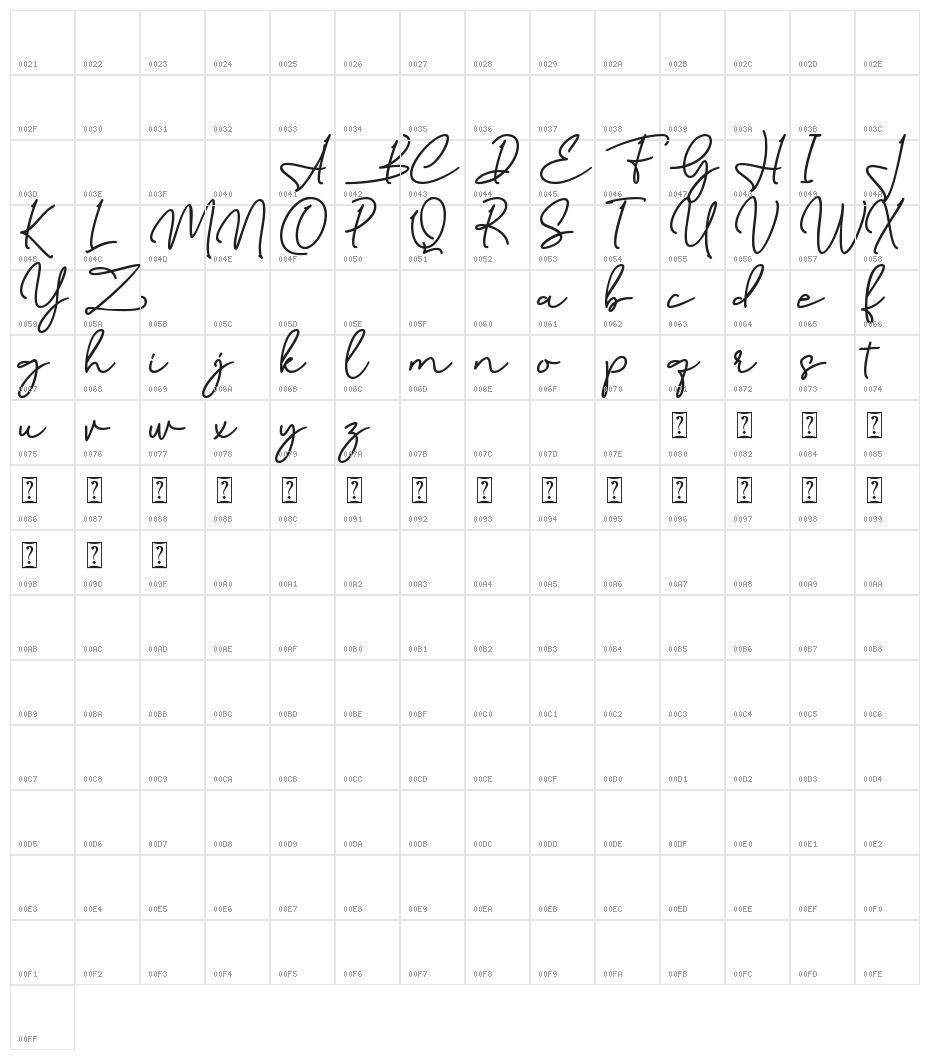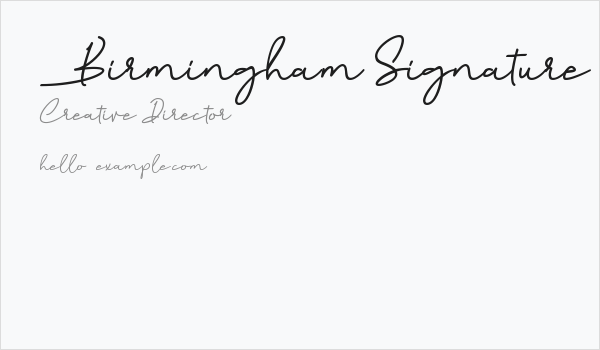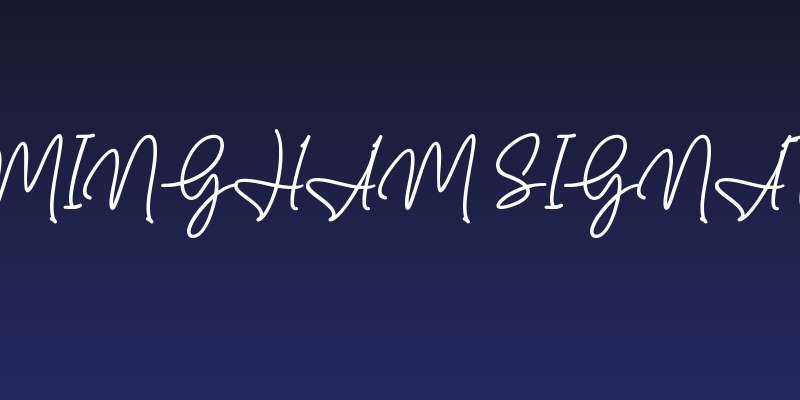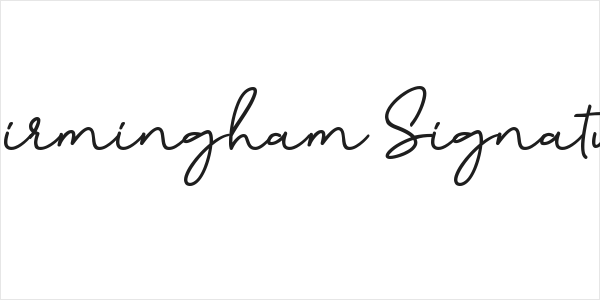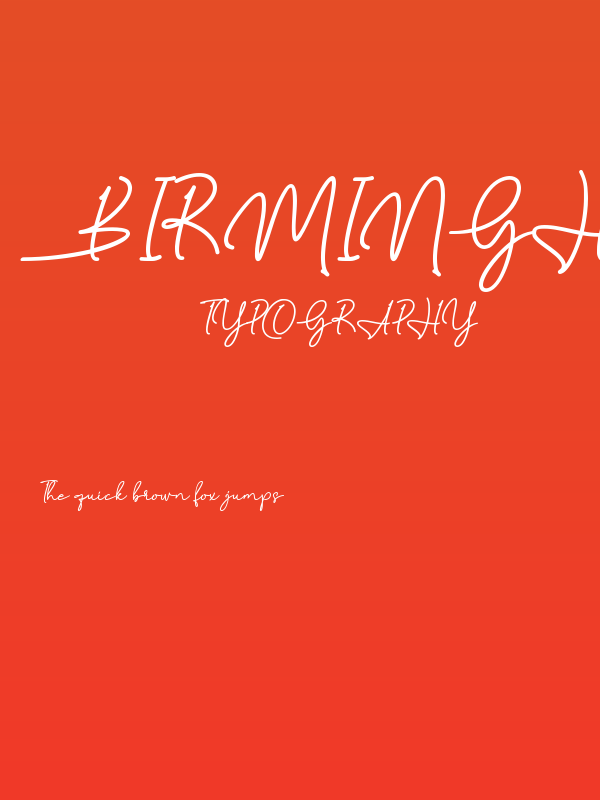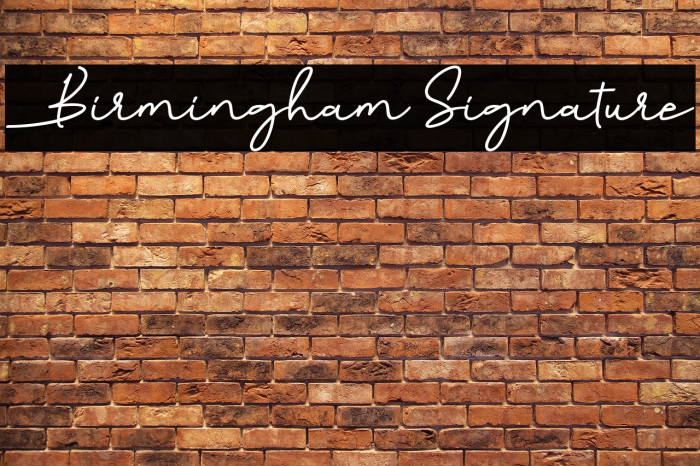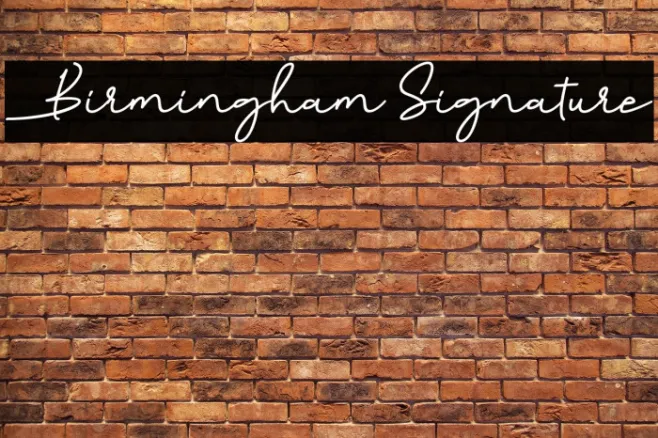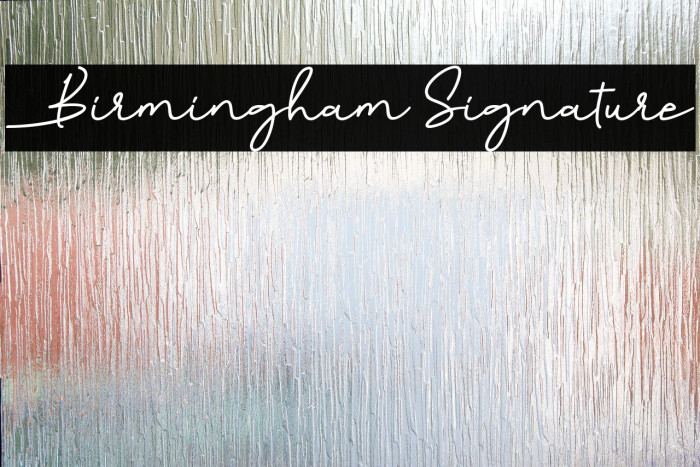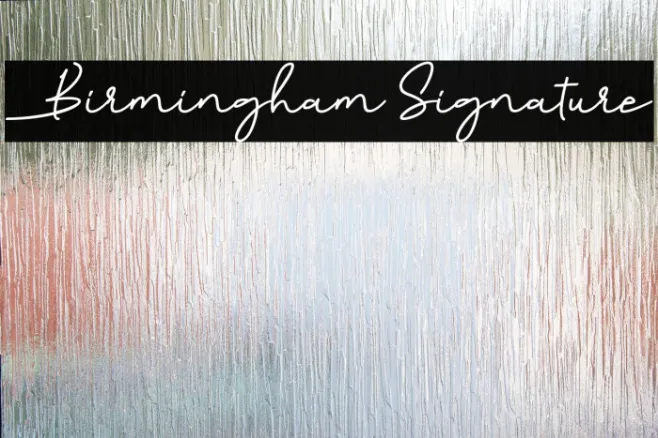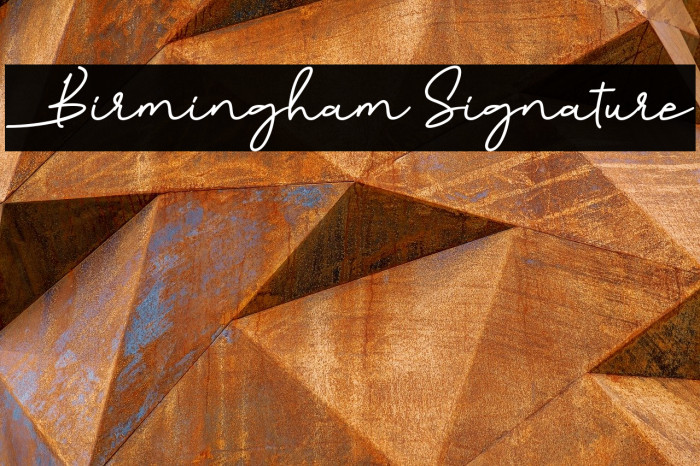
Birmingham Signature Font
Birmingham Signature Description
This font exudes a sophisticated and elegant script style, characterized by its fluid and graceful strokes. The uppercase letters are slightly more ornate, with sweeping curves and loops that add a touch of flair. The lowercase letters maintain a consistent flow, making them highly legible while retaining an artistic quality. The font's overall appearance is reminiscent of a handwritten signature, lending it a personal and authentic feel. The characters are well-spaced, ensuring readability without compromising on style. This font is ideal for projects that require a touch of elegance and personalization.
| Proposed Projects | Ideal for wedding invitations, branding, personal stationery, and elegant logos. |